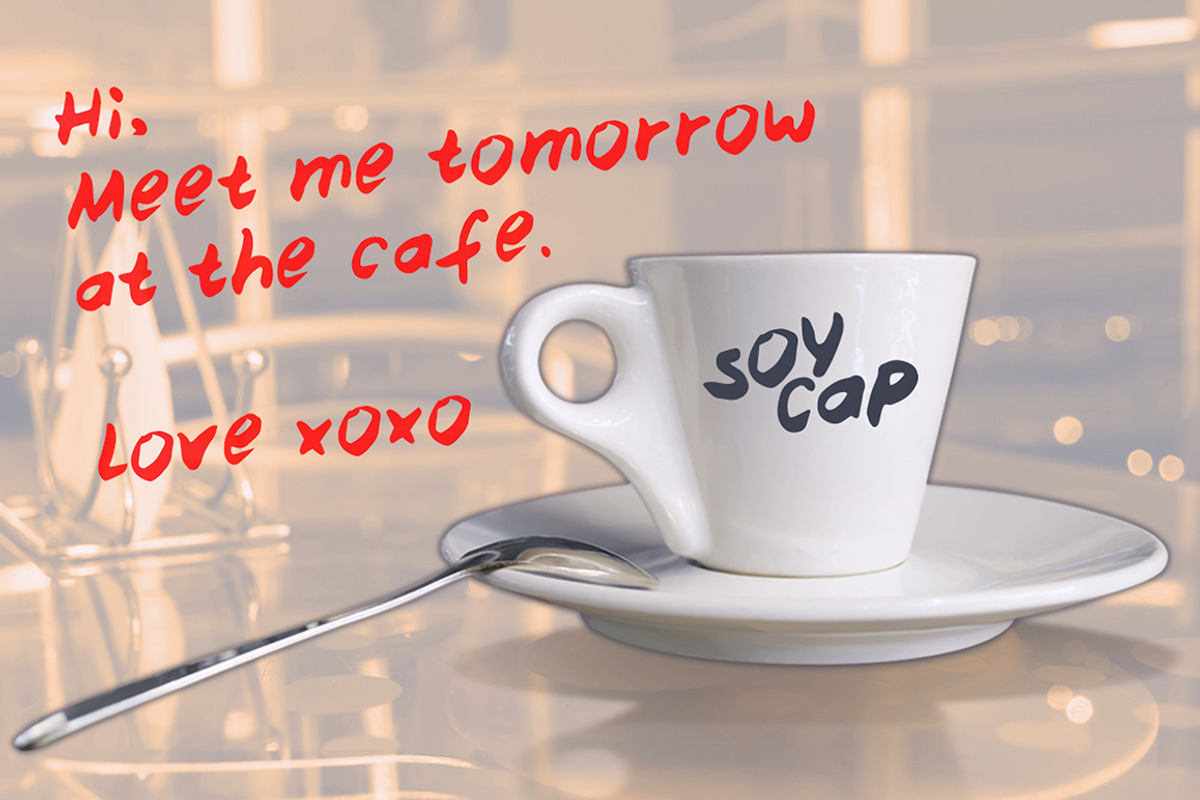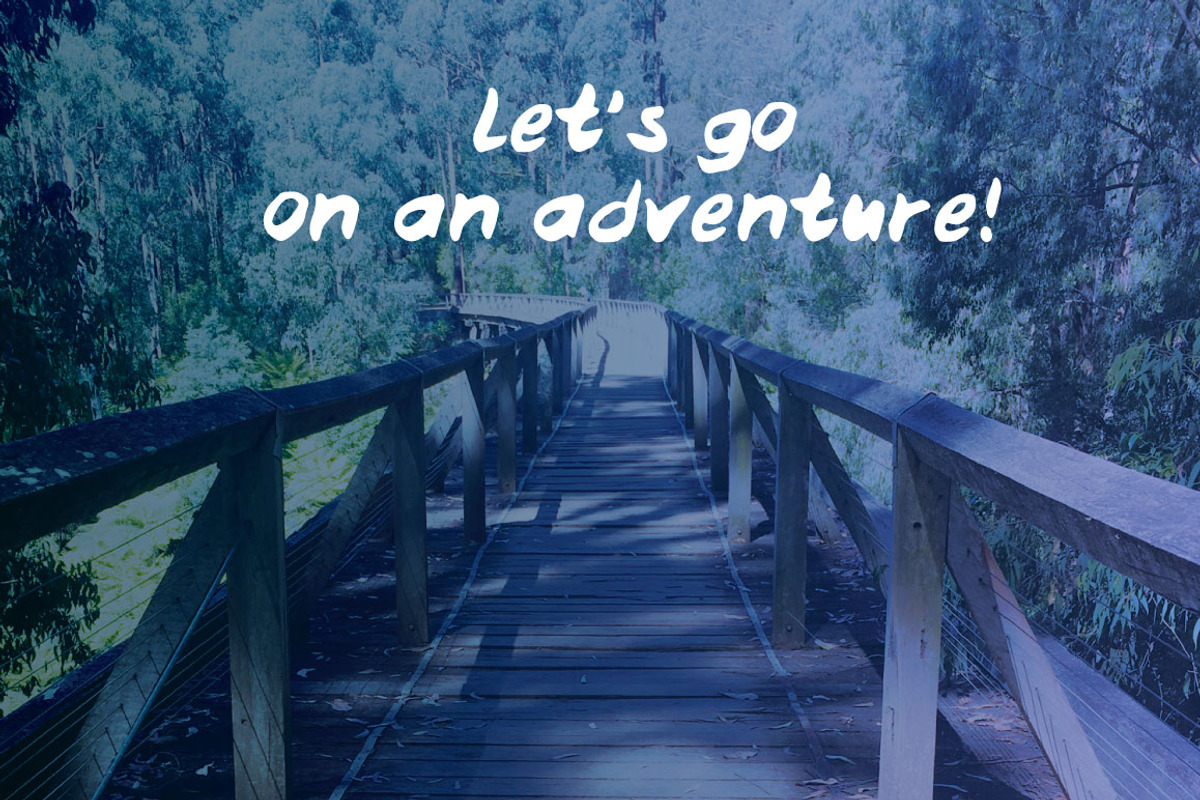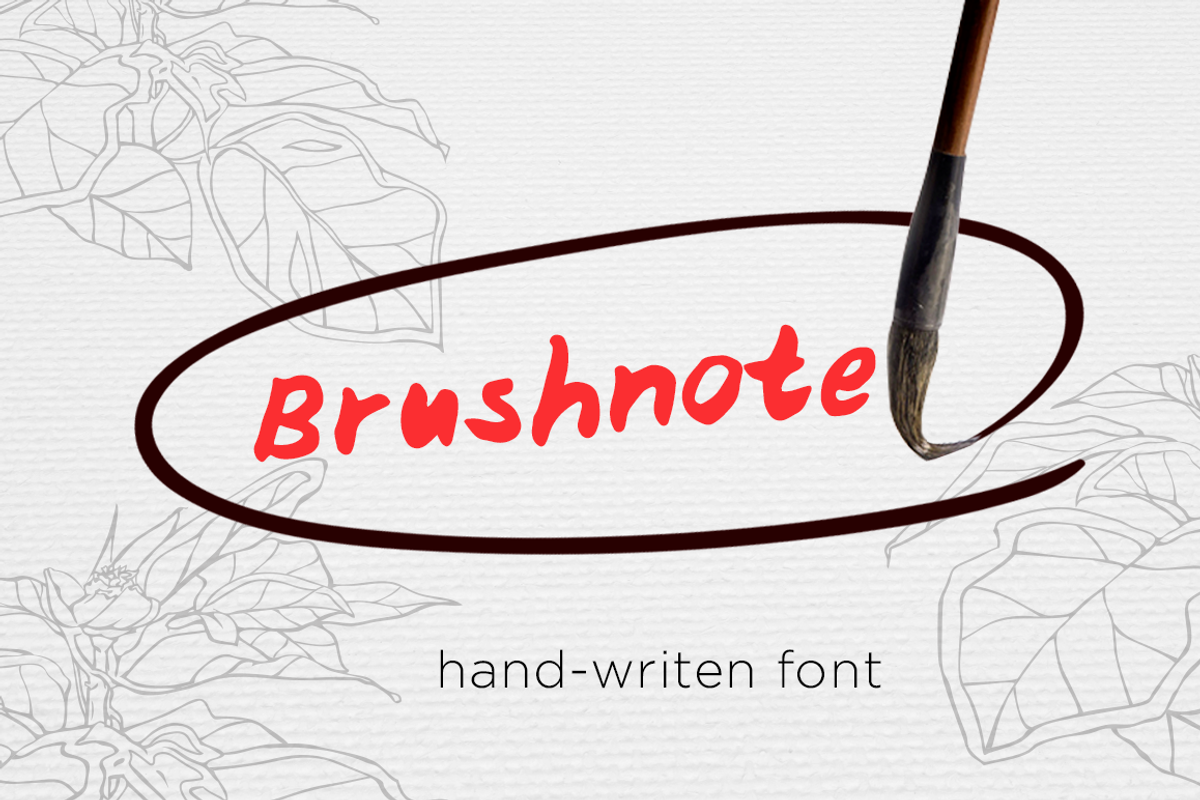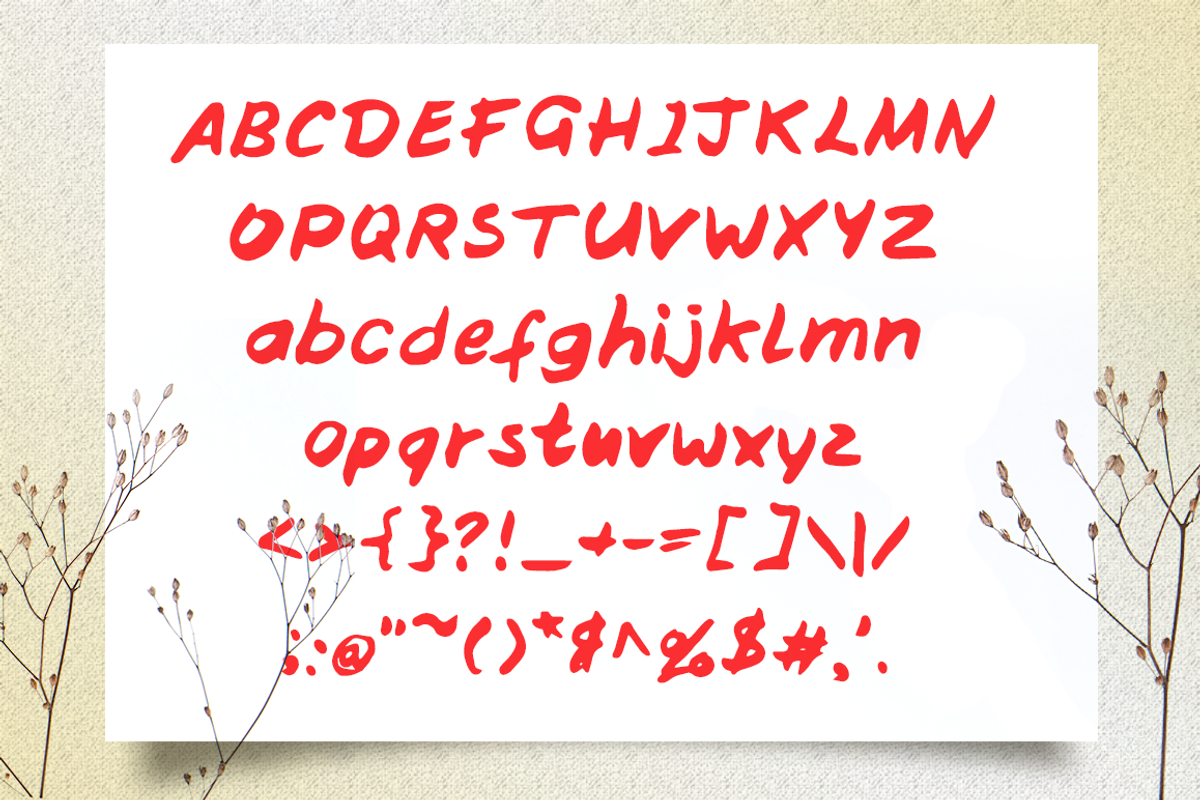
Brushnote font
Brushnote font by morninglight is a font selected for branding, posters, packaging, typography.
- Includes all characters, upper and lower case, as well as symbols, punctuation marks etc.
Why Brushnote font is worth a look
Brushnote font by morninglight fits naturally into Branding, posters, packaging, typography.